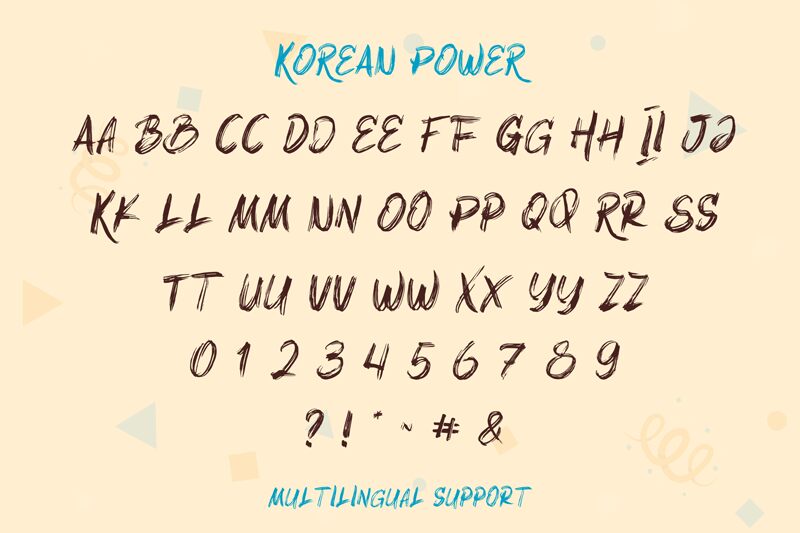
Korean Power font by Tigadestd captivates with its dynamic brush style, exuding energy and artistic flair. Each letter is infused with a lively, hand-painted effect, making it perfect for designs that demand a bold, expressive touch. Its unique aesthetic appeals to those looking to make a statement, effortlessly blending traditional brush strokes with modern design sensibilities.
Ideal for posters, branding projects, or any creative endeavor seeking authenticity and vigor, Korean Power stands out as a powerful free font option. Download this distinctive typeface today to elevate your projects with its striking style and versatility. Whether you're crafting eye-catching headlines or unique logos, Korean Power font promises to add character and impact in any design context.